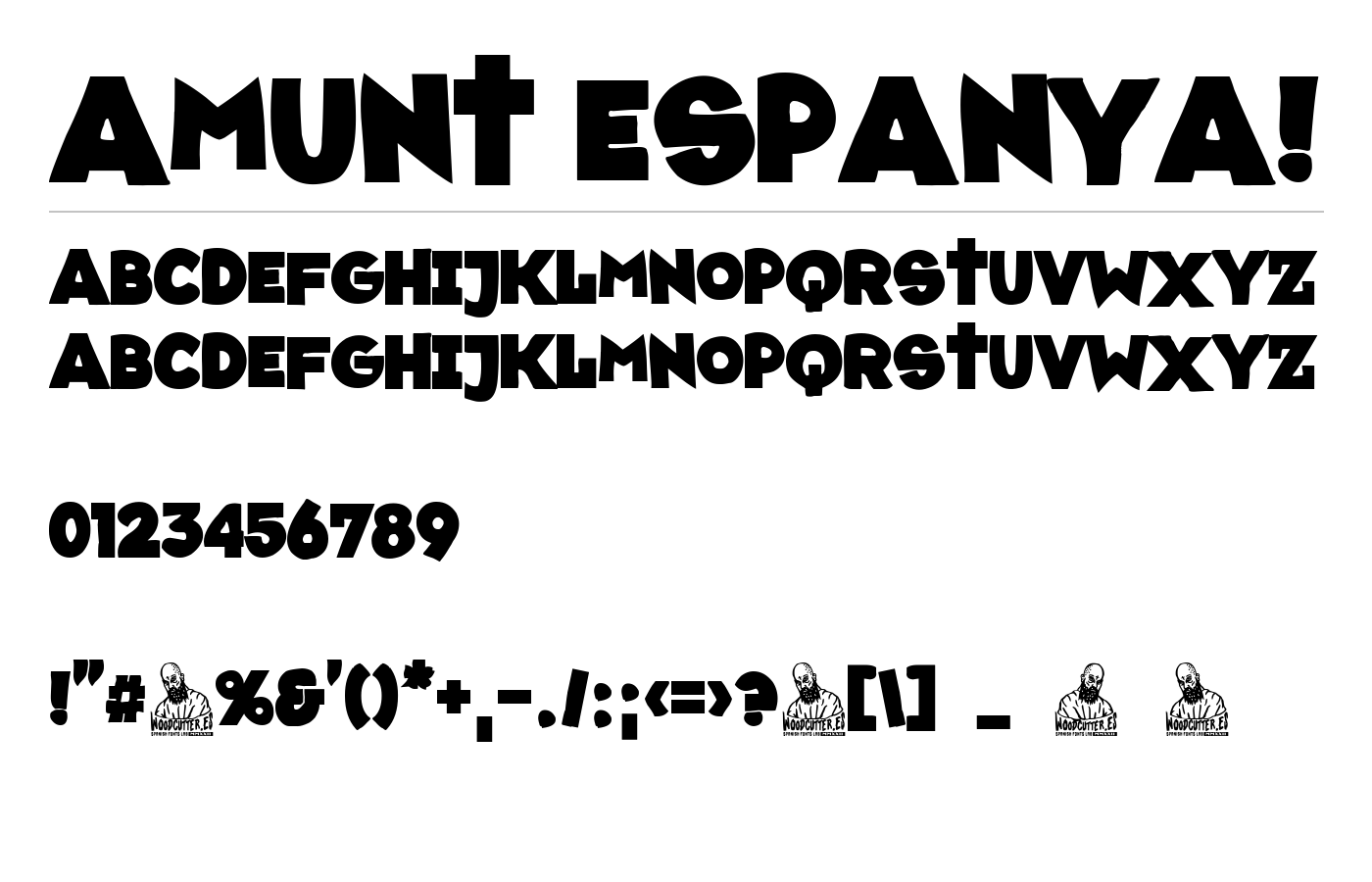
Amunt Espanya! is a bold, playful display font with a chunky, hand-crafted feel that combines thick strokes and whimsical letterforms. Its uneven shapes and strong presence make it perfect for lively, attention-grabbing designs such as posters, headlines, and branding projects that want to convey energy and personality. This font works best where you need a fun, informal vibe that stands out with a friendly, artistic touch.
Amunt Espanya! Font
About Amunt Espanya! Font